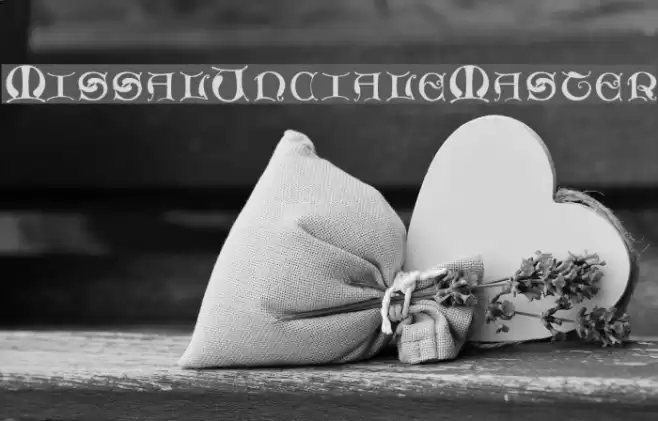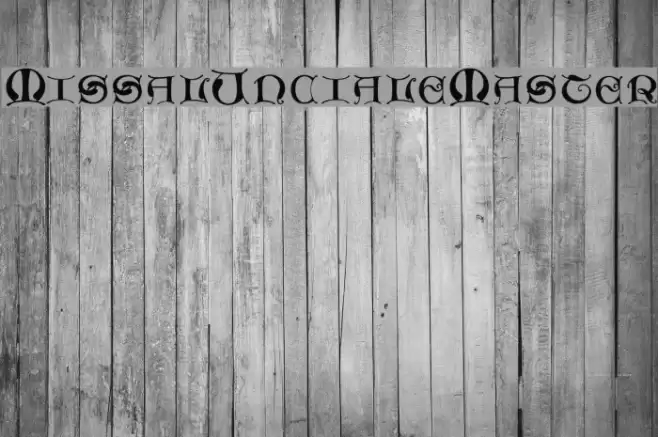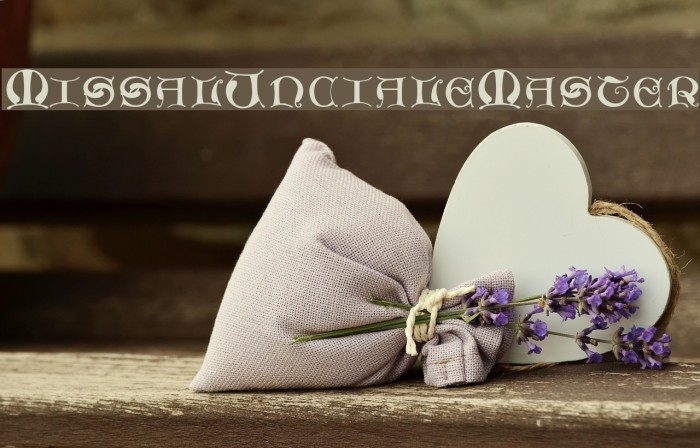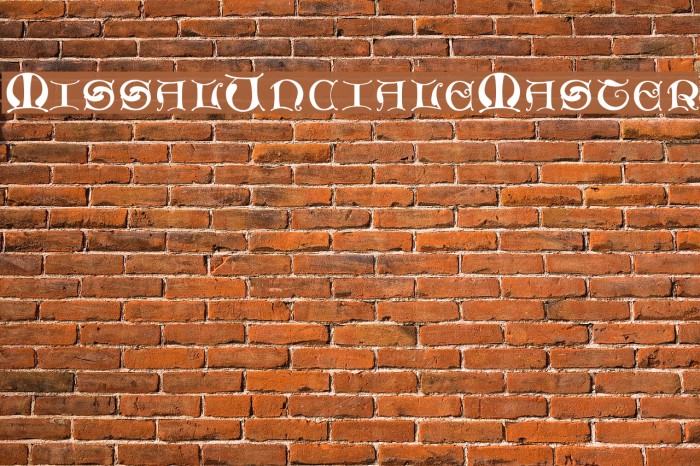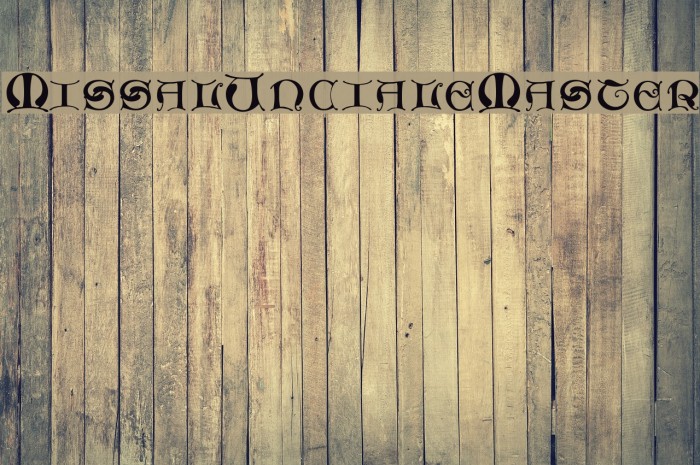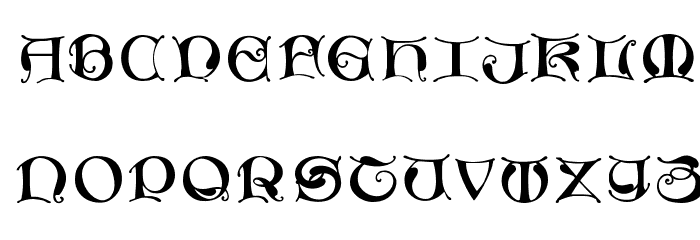
MissalUncialeMaster Font
MissalUncialeMaster Description
This font exhibits a distinct medieval and gothic style, characterized by its ornate and decorative elements. The uppercase letters are embellished with intricate flourishes and curves, giving them a regal and historical appearance. The font's design is reminiscent of ancient manuscripts and religious texts, with a strong emphasis on artistic expression. The characters are bold and prominent, making them suitable for impactful visual statements. The overall aesthetic is both elegant and dramatic, capturing the essence of a bygone era with its unique and captivating design.
A decorative gothic-style font with ornate and intricate details from Gothic fonts.
- Proposed Projects: Ideal for historical or fantasy-themed projects, book covers, posters, and branding that requires a medieval touch.
- Overall Style: Vintage